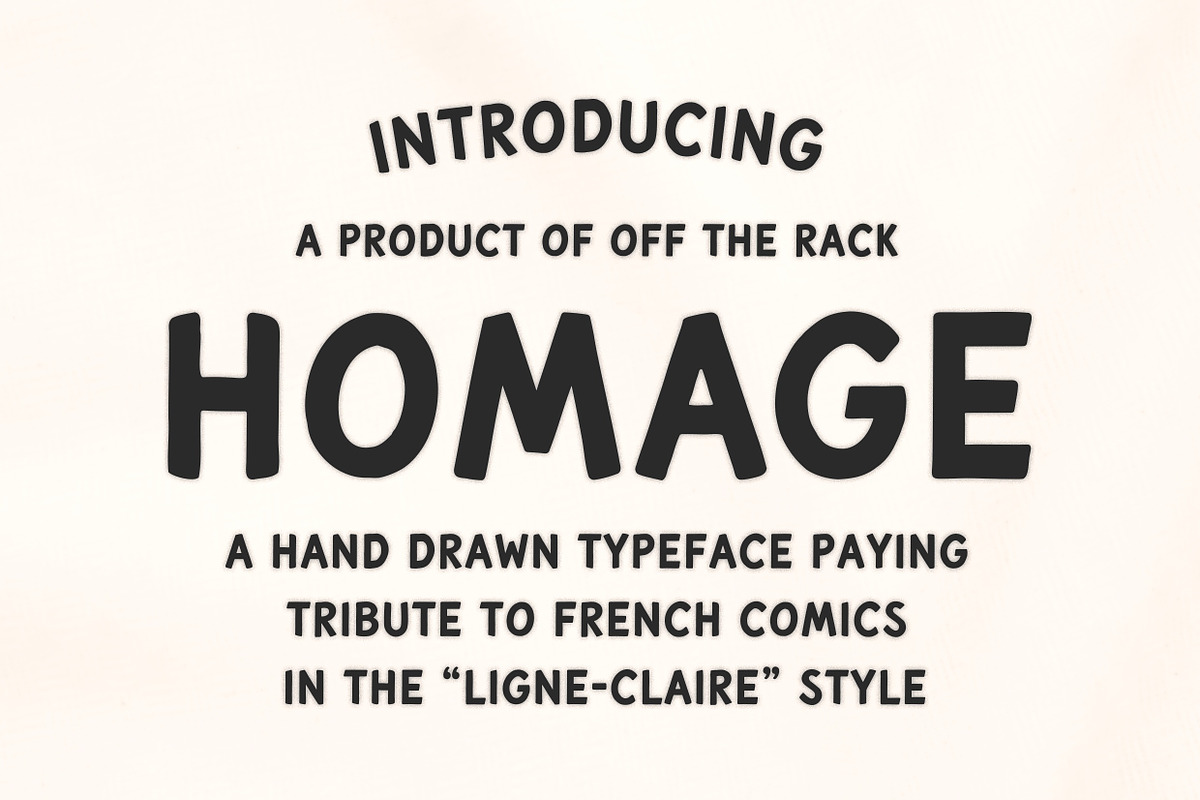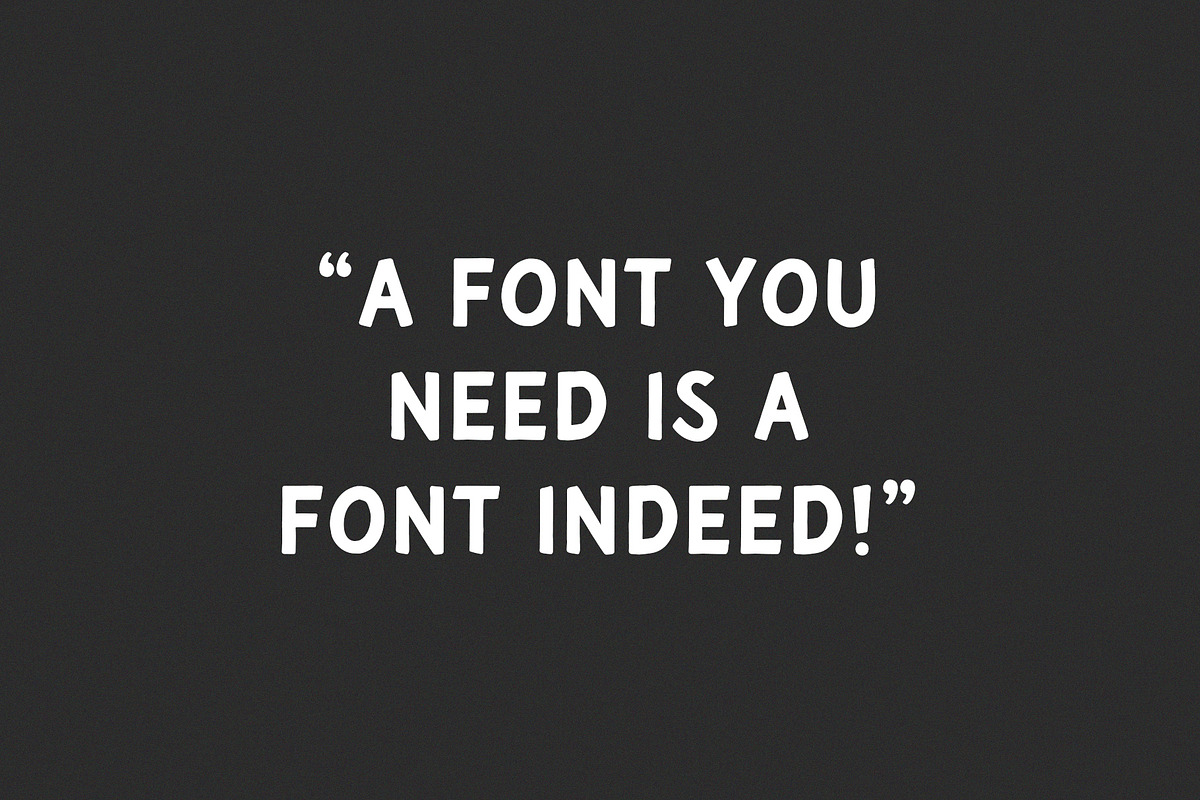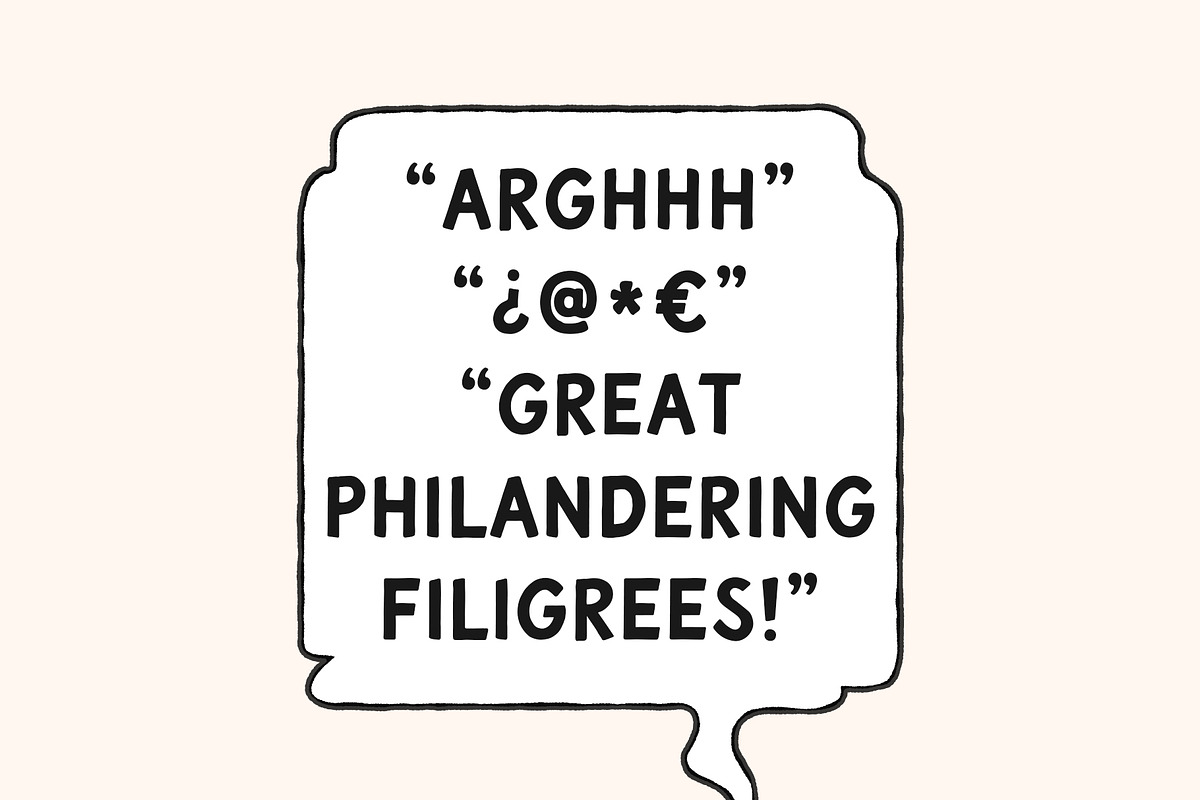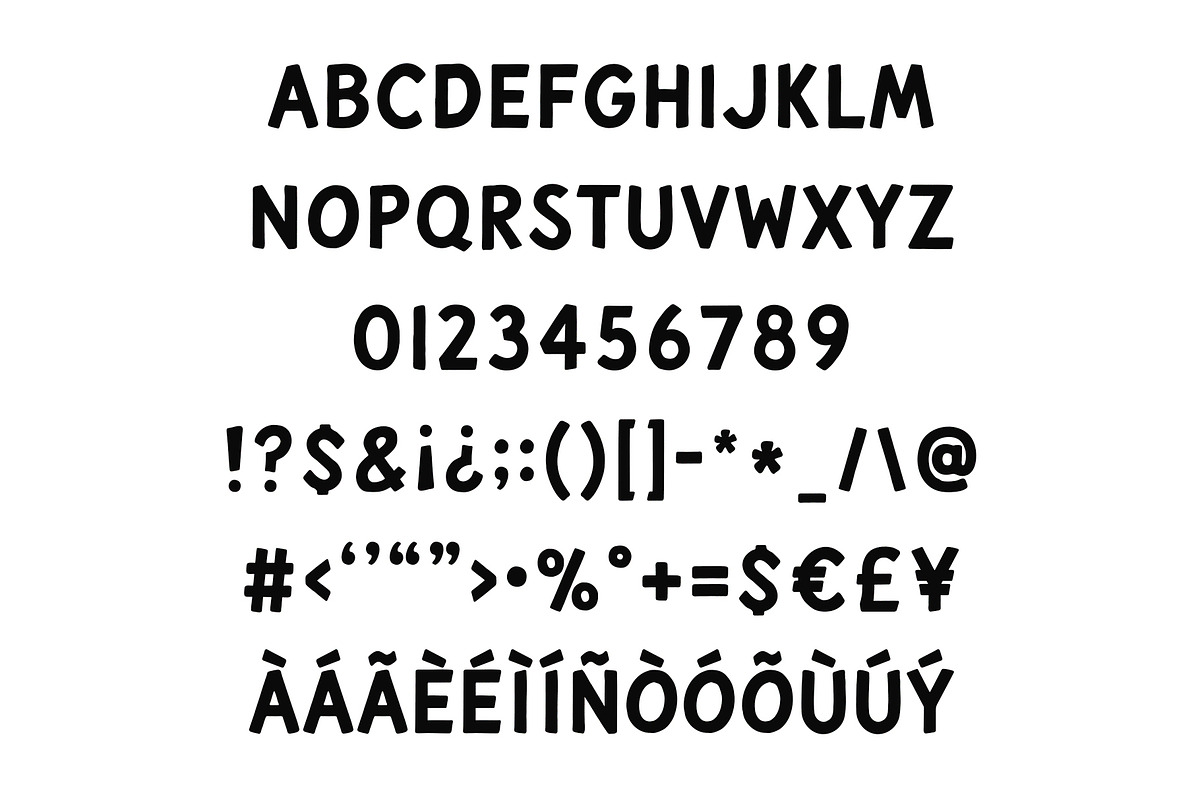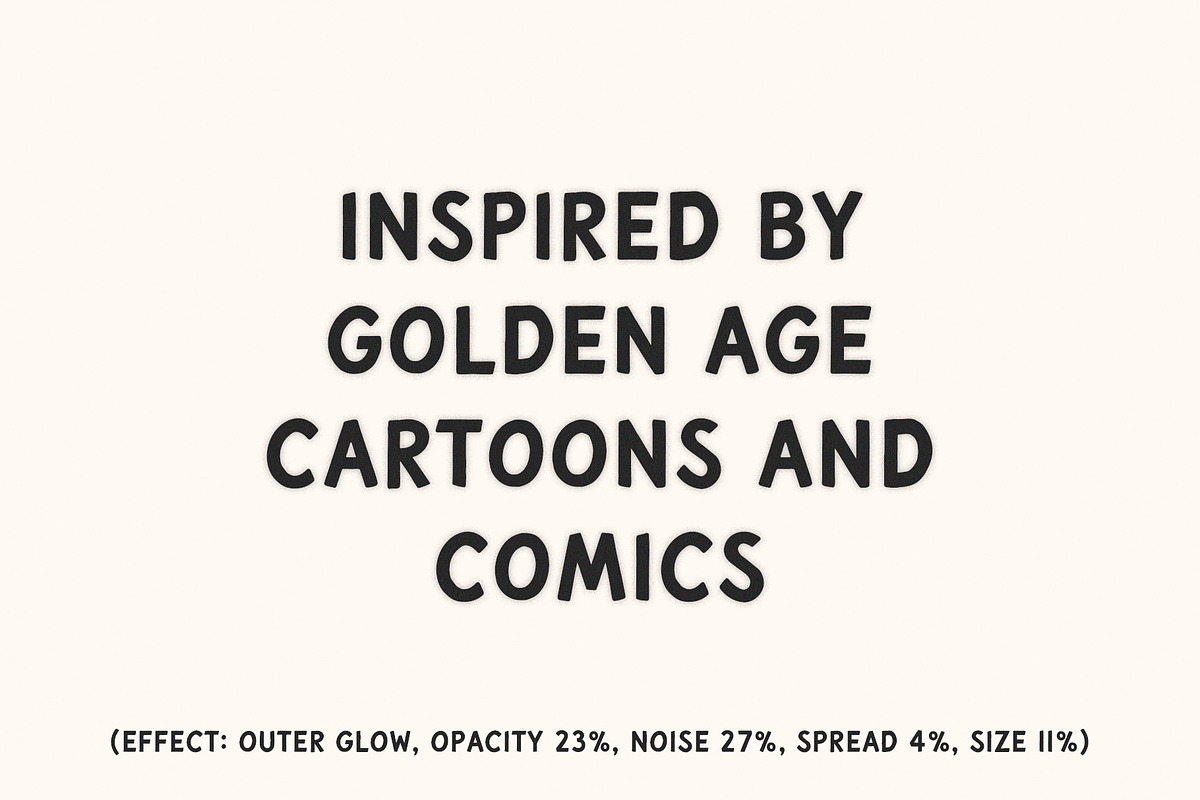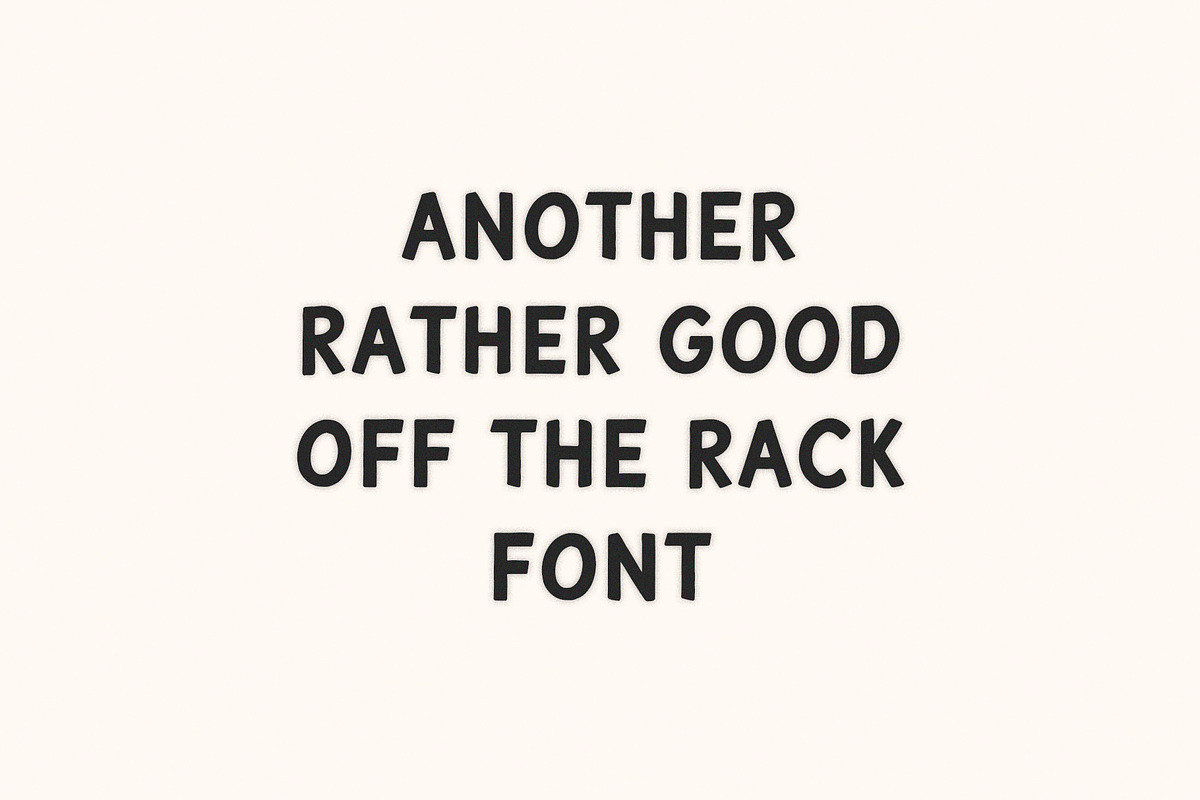
Homage | Hand Drawn Font
Loosely based on the 'ligne-claire' comics from France, Homage is an - uhm - 'homage' to golden era cartoon lettering 💥
It's usefulness doesn't end there, however! Homage is a modern hand drawn typeface ideal for logos, headings, titles (is that the same thing as headings?)... etc.
Contains uppercase alphabet, numbers, and extensive cartoon-ish punctuation